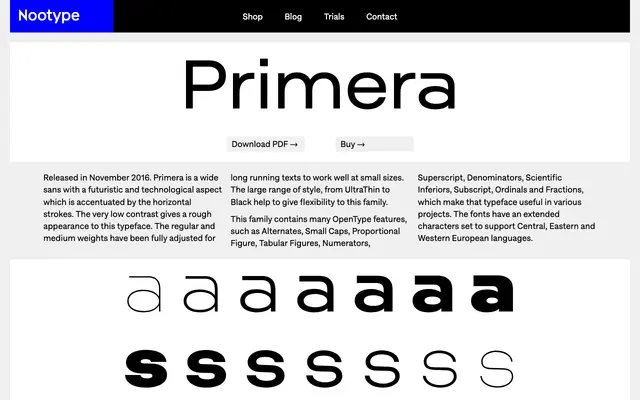
Primera
Nootype · 2016
A wide, low-contrast geometric sans released in 2016, spanning seven weights from UltraThin to Black with a futuristic character defined by prominent horizontal strokes.
Designed with a deliberately wide stance and very low stroke contrast, Primera achieves a rough, technological feel that sets it apart from conventional geometric sans families. The Regular and Medium weights are optimised for running text at small sizes, while the full range from UltraThin to Black gives the family flexibility across display and body work. Extensive OpenType features include small caps, tabular and proportional figures, fractions and ordinals, alongside support for Central, Eastern and Western European languages.
A wide, low-contrast sans with a futuristic and technological character, achieved through prominent horizontal strokes and very low stroke contrast, placing it within the geometric sans tradition.